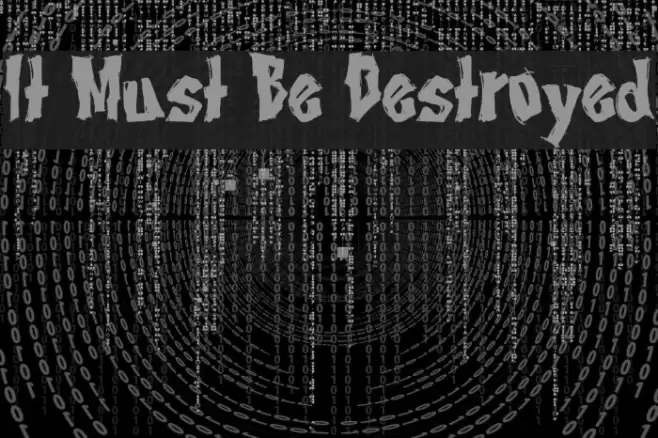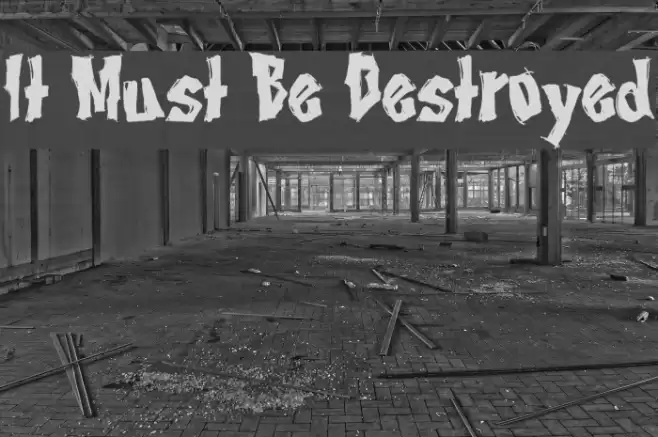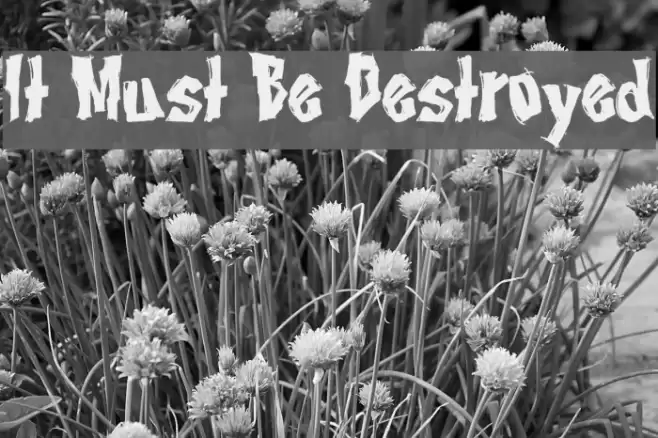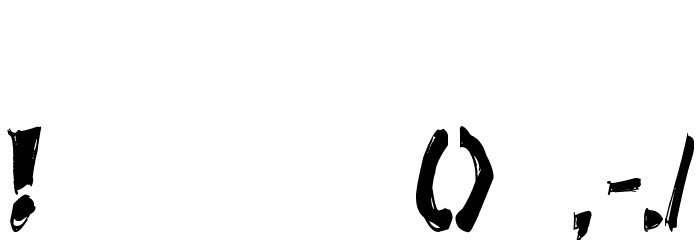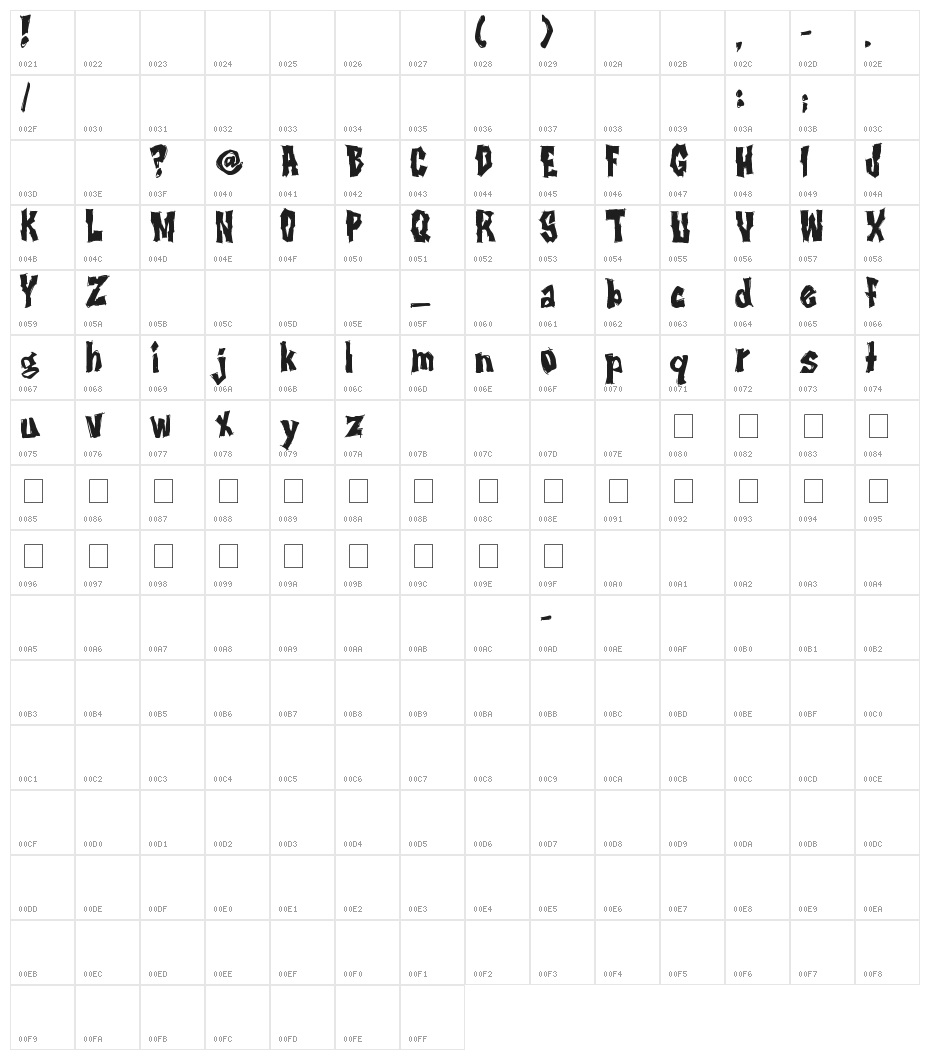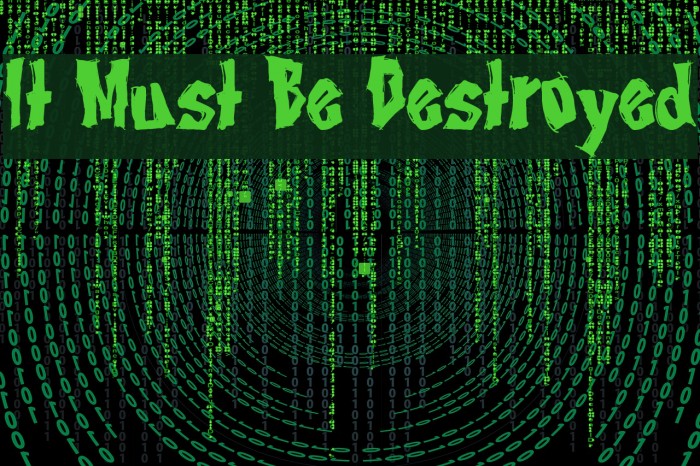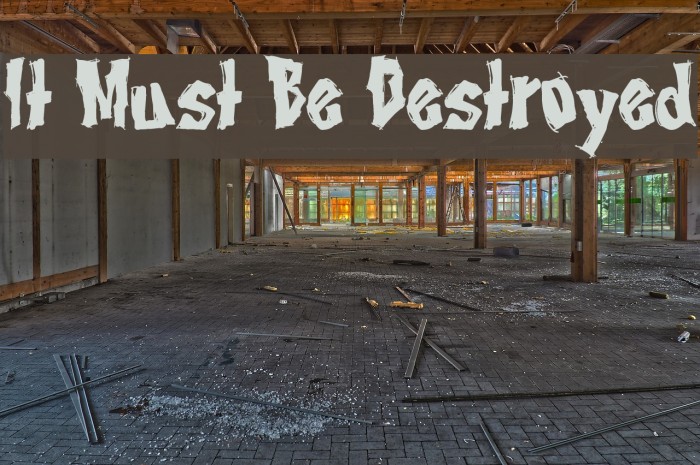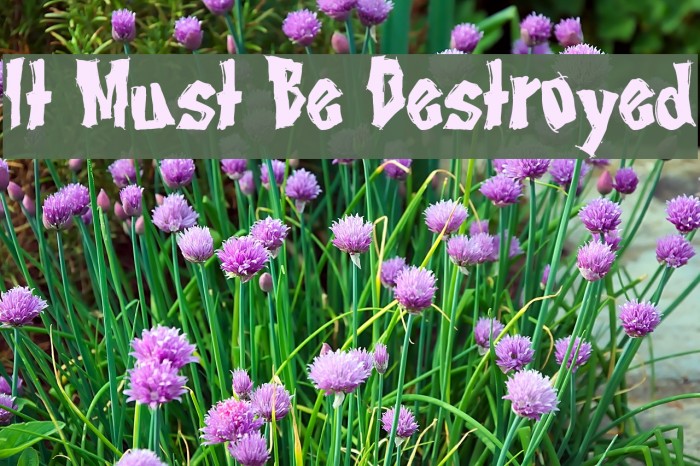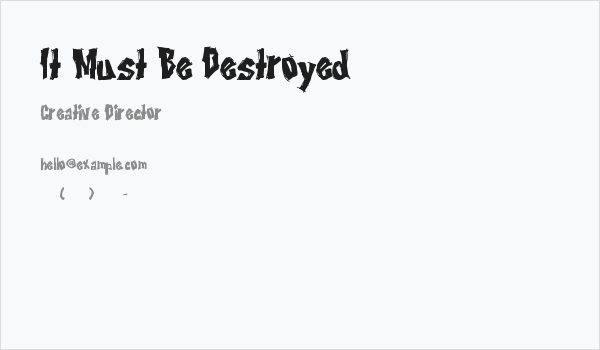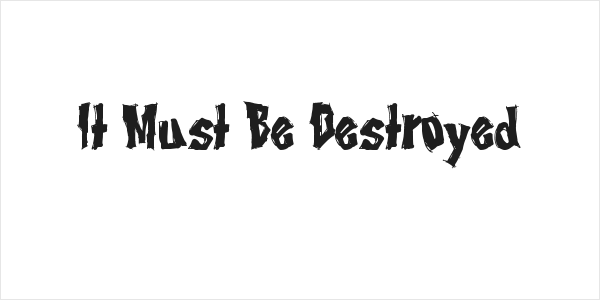
It Must Be Destroyed Font
It Must Be Destroyed Description
This font features a bold and aggressive style, characterized by its jagged edges and irregular shapes. The letters appear as if they have been roughly cut or torn, giving a chaotic and rebellious feel. The uppercase and lowercase letters maintain a consistent roughness, while the numbers and special characters follow the same distressed aesthetic. This font is highly decorative and stands out due to its unique and unconventional design, making it ideal for projects that require a strong visual impact.
A bold, jagged, and aggressive font with a distressed, rebellious style from Horror fonts.
- Proposed Projects: Ideal for album covers, horror movie posters, edgy branding, and any project needing a bold, rebellious aesthetic.